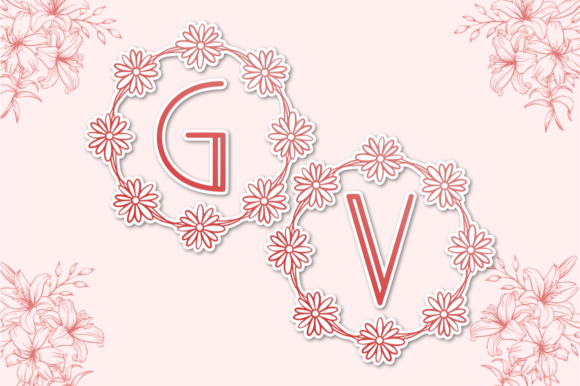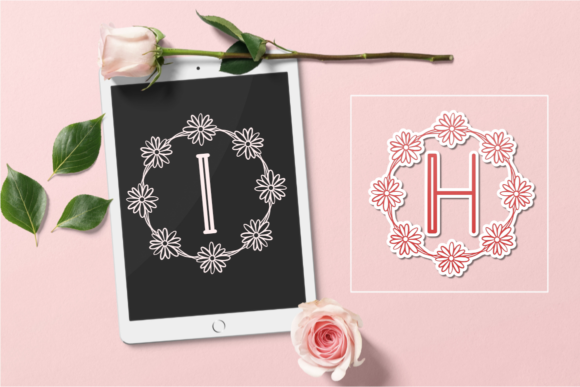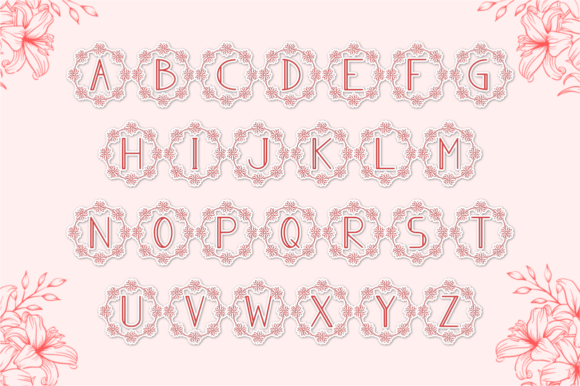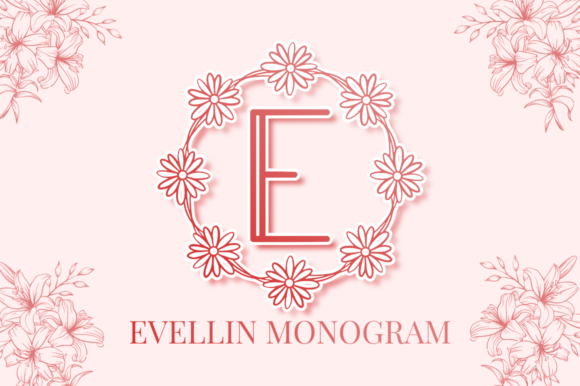
Introducing Evellin Monogram Font: The Charming Decorative Font for Your Creative Projects
Are you looking for a font that can add a touch of elegance and sophistication to your designs? Look no further than Evellin Monogram Font. This charming decorative font is perfect for creating beautiful invitations, stationary art, social media posts, and greeting cards that will leave a lasting impression on your audience. In this article, we’ll take a closer look at Evellin Monogram Font and explore its features, uses, and benefits.
What is Evellin Monogram Font?
Evellin Monogram Font is a decorative font that boasts an authentic feel, making it perfect for designers and crafters who want to add a personal touch to their work. Its unique and intricate design makes it stand out from other fonts, and its versatility ensures that it can be used for a wide range of projects.
Features of Evellin Monogram Font
So, what makes Evellin Monogram Font so special? Here are some of its key features:
- Authentic feel: Evellin Monogram Font has a genuine, hand-crafted feel that will transport your designs back in time.
- Decorative design: The font features intricate and beautiful designs that will add a touch of elegance to your work.
- Versatility: Evellin Monogram Font can be used for a wide range of projects, from invitations and stationary art to social media posts and greeting cards.
Uses of Evellin Monogram Font
Evellin Monogram Font is a versatile font that can be used for a wide range of projects. Here are some ideas to get you started:
- Invitations: Create beautiful wedding invitations, birthday invitations, and other special occasion invitations with Evellin Monogram Font.
- Stationary art: Use the font to create stunning stationary art, including letterheads, journals, and planners.
- Social media posts: Add a touch of elegance to your social media posts with Evellin Monogram Font.
- Greeting cards: Create cute and personalized greeting cards for special occasions, including birthdays, anniversaries, and holidays.
Benefits of Using Evellin Monogram Font
So, why should you choose Evellin Monogram Font for your projects? Here are some benefits:
- Unique designs: Evellin Monogram Font offers unique and intricate designs that will set your work apart from others.
- Time-saving: The font is easy to use, saving you time and effort on your projects.
- Professional look: Evellin Monogram Font will give your work a professional and polished look, making it perfect for designers and crafters who want to create high-quality designs.
Tips for Using Evellin Monogram Font
Here are some tips for using Evellin Monogram Font:
- Experiment with different sizes: Try out different font sizes to see what works best for your project.
- Pair with other fonts: Pair Evellin Monogram Font with other fonts to create a unique and interesting design.
- Use on different backgrounds: Try using the font on different backgrounds to see what works best for your design.
Evellin Monogram Font is a charming decorative font that is perfect for designers and crafters who want to add a touch of elegance and sophistication to their work. With its authentic feel, decorative design, and versatility, it’s the perfect solution for a wide range of projects. Whether you’re creating invitations, stationary art, social media posts, or greeting cards, Evellin Monogram Font is sure to impress. So why wait? Download Evellin Monogram Font today and start creating beautiful designs that will leave a lasting impression on your audience.